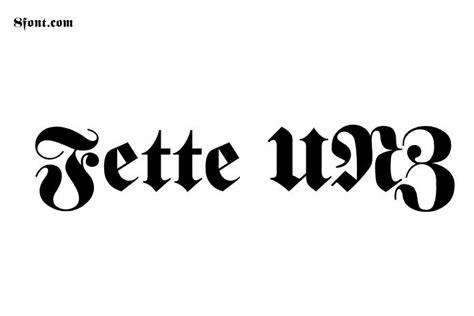
Fette Unz Fraktur Font: A Detailed Overview
The Fette Unz Fraktur font stands as a testament to the enduring appeal and historical significance of blackletter typography. This font, characterized by its bold, robust strokes and intricate design, has deep roots in German printing traditions and continues to be a favorite for specific design applications. In this article, we’ll dive deep into the origins, characteristics, uses, and modern adaptations of the Fette Unz Fraktur font, providing you with a comprehensive understanding of this classic typeface.
Origins and History of Fette Unz Fraktur
Diving into the origins and history of Fette Unz Fraktur , it’s like stepping back into a world where typography was an art form meticulously crafted to convey not just words, but also a sense of cultural identity and historical weight. The Fraktur typeface, which Fette Unz Fraktur is a bold variant of, emerged during the 16th century, gaining immense popularity in German-speaking regions. It was a period marked by significant cultural and religious shifts, with the Protestant Reformation playing a pivotal role in shaping the linguistic landscape. Fraktur became closely associated with the German language and was often seen as a symbol of German national identity.
The term “Fette” in German means “bold,” indicating that Fette Unz Fraktur is a bolder, heavier version of the Unz Fraktur typeface. The Unz Fraktur itself is a specific style within the broader Fraktur family, known for its unique letterforms and decorative elements. The development of Fette Unz Fraktur can be attributed to the increasing demand for more visually striking and impactful fonts in printing. As printing technology advanced, designers sought ways to create typefaces that would stand out and capture the reader’s attention.
During the 19th and early 20th centuries, Fette Unz Fraktur was extensively used in various printed materials, including books, newspapers, posters, and official documents. Its bold appearance made it particularly suitable for headlines and titles, where it conveyed a sense of authority and tradition. The font’s intricate details and ornate letterforms also added a touch of elegance and sophistication to the printed page.
However, the association of Fraktur fonts with German nationalism led to its decline in popularity after World War II. The Nazi regime had heavily promoted Fraktur as the quintessential German typeface, and after the war, there was a widespread effort to distance Germany from its nationalist past. As a result, many designers and publishers abandoned Fraktur in favor of more neutral and modern typefaces like sans-serif fonts.
Despite its decline, Fette Unz Fraktur has experienced a resurgence in recent years, driven by a renewed interest in historical typography and a desire to explore its unique aesthetic qualities. Designers are now using Fette Unz Fraktur in a variety of creative projects, often combining it with contemporary design elements to create a striking contrast between tradition and modernity. This revival reflects a broader trend in graphic design, where historical typefaces are being reinterpreted and adapted for new applications.
Key Characteristics of Fette Unz Fraktur
Understanding the key characteristics of Fette Unz Fraktur is essential for appreciating its unique appeal and knowing how to effectively use it in design projects. This typeface is distinguished by several notable features that set it apart from other fonts. Firstly, its bold weight is immediately noticeable. The thick strokes give the letters a strong, commanding presence on the page, making it ideal for headlines, titles, and other display purposes where visibility is crucial. The boldness also enhances the font’s legibility, especially in larger sizes.
Secondly, Fette Unz Fraktur exhibits intricate and ornate letterforms. Each character is meticulously designed with elaborate details, including decorative serifs, flourishes, and swashes. These elements add a touch of elegance and sophistication to the font, making it suitable for projects that require a sense of formality and tradition. The intricate details also contribute to the font’s unique visual texture, creating a rich and engaging reading experience.
Another key characteristic of Fette Unz Fraktur is its high contrast between thick and thin strokes. This contrast is a hallmark of Fraktur typefaces and adds to the font’s dynamic and visually appealing appearance. The thick strokes provide a strong foundation for the letters, while the thin strokes create delicate details that enhance the font’s overall aesthetic. This contrast also contributes to the font’s legibility, as it helps to distinguish individual characters from one another.
The angular and sharp letterforms are also a defining feature of Fette Unz Fraktur. Unlike the rounded shapes found in many modern typefaces, Fette Unz Fraktur features sharp angles and pointed serifs that give it a distinctive and somewhat aggressive appearance. This angularity is particularly evident in characters such as “k,” “x,” and “z,” where the sharp angles create a sense of dynamism and energy.
Furthermore, Fette Unz Fraktur often includes ligatures, which are special characters that combine two or more letters into a single glyph. Ligatures were commonly used in historical printing to improve the appearance of text and to save space. In Fette Unz Fraktur, ligatures such as “ch,” “ck,” “tz,” and “st” are frequently used, adding to the font’s unique and historical character. These ligatures not only enhance the font’s aesthetic appeal but also reflect its origins in traditional German typography.
So, the next time you’re looking for a typeface that combines history, elegance, and boldness, consider giving Fette Unz Fraktur a try. You might just discover that it’s the perfect font for your next creative project.